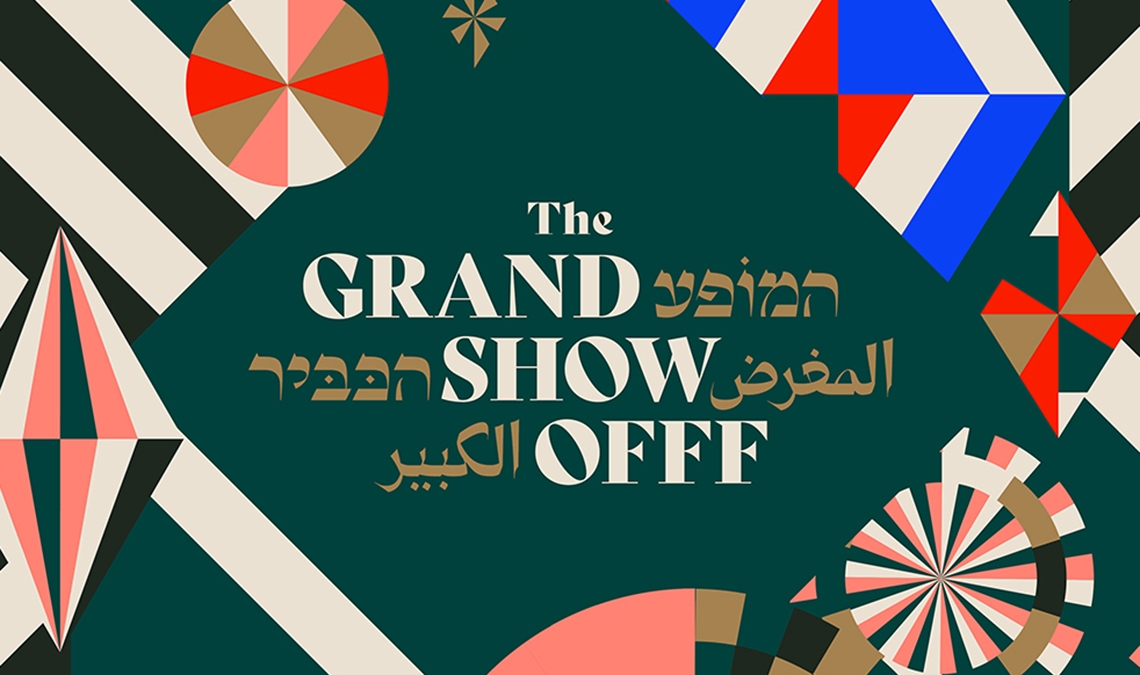
Bely goes OFFF
As a showstopper used around the world, Roxane Gataud’s Bely is no stranger to large formats and big stages, a recent one being OFFF Tel Aviv.
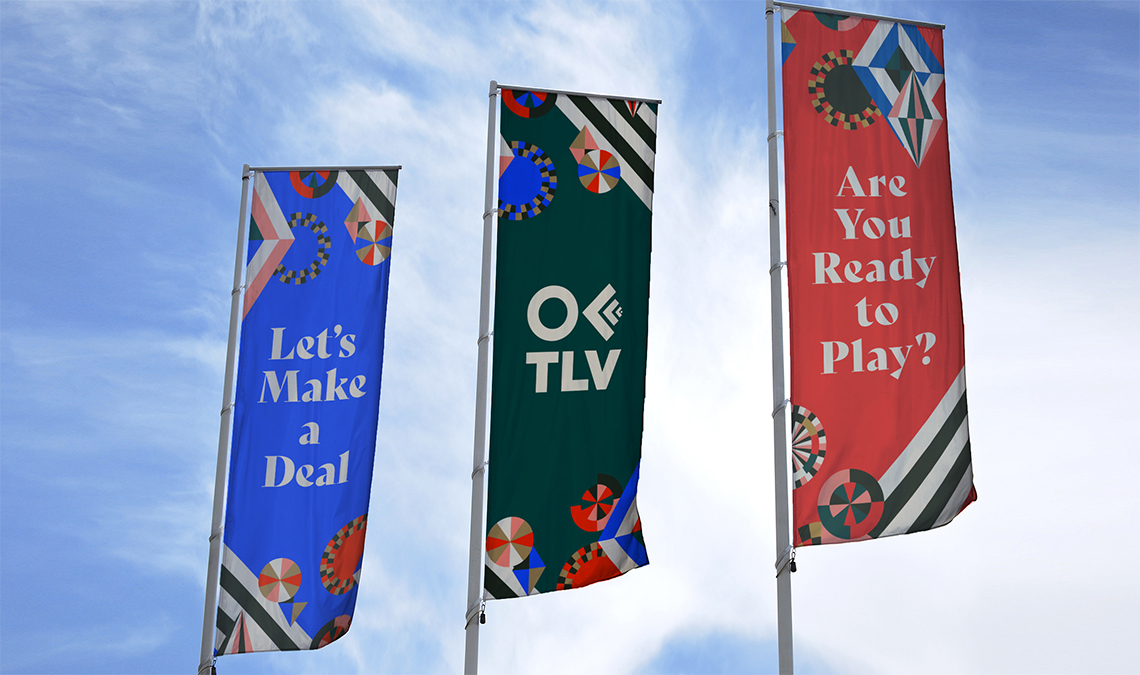
OFFF Tel Aviv is a visual design festival hosting innovative, international speakers — a meeting point for all talents worldwide to collaborate. Roxane Gataud’s Bely was used as the main 2018 logo typeface and other conference elements.
The branding was created by Amnon Illuz, Creative Director at Re-Levant Design, who said he chose Bely because “we looked for distinctive typography which can work with our branding concept: a local game show. Therefore we chose to use Bely, which is a French-style character, a bit fancy and glamorous, however fearless, twisted, and a little bit off :) We created complementary types in Hebrew and Arabic combined in THE GRAND SHOW OFFF logo.”
Bely is Roxane Gataud’s venturesome text font family paired with a fearless display in the French style. Built upon classical proportions to capitalise on reading familiarity, Bely Display pushes the logic of the text weights to their extreme, resulting in adventurous forms for unforgettable branding, packaging and headlines.